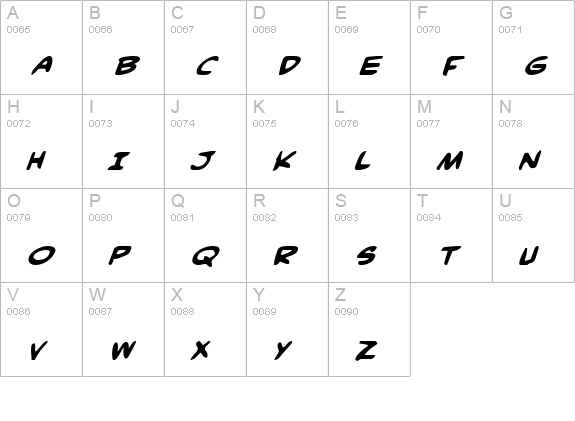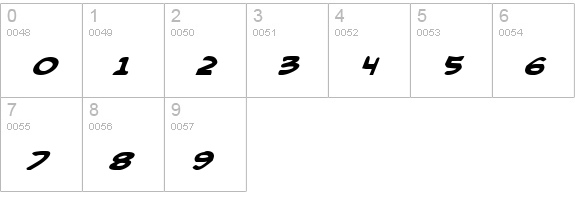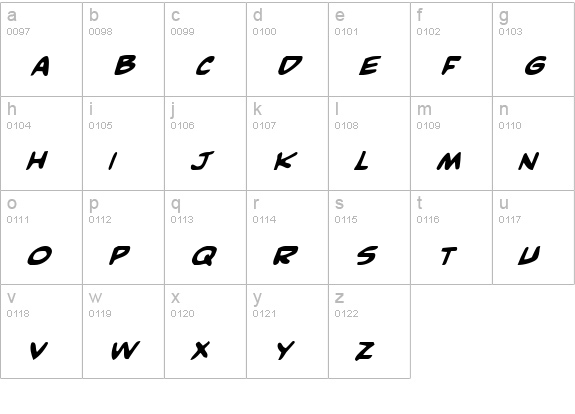
Comic Book Commando Bold Italic Font Details
Comic Book Commando Bold Italic is a comfortable, highly readable, italic variant in the Comic typeface family \xE2\x80\x94 well suited to long-form body text, articles, and editorial content.
Comic Book Commando Bold Italic font is a dynamic and expressive typeface that exudes strength and boldness. Its striking design captures the essence of classic comic book lettering while adding a modern twist with its italicized style. The sharp lines and exaggerated curves make this font perfect for creating eye-catching headlines and titles that demand attention. What sets Comic Book Commando Bold Italic font apart is not just its distinctive aesthetics, but also its versatility. Whether you're designing a superhero comic, a sci-fi adventure, or a high-energy action sequence, this font will bring your words to life with its energetic presence. Best of all, Comic Book Commando Bold Italic font is completely free to download at FontsMarket.com. Now you can add this powerful and captivating font to your collection without any cost, making it a must-have for any designer looking to make a bold statement. Elevate your projects with the dynamic energy of Comic Book Commando Bold Italic font today!